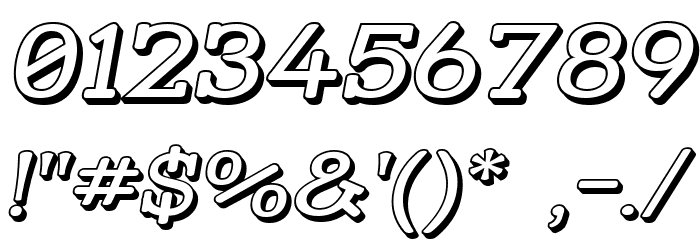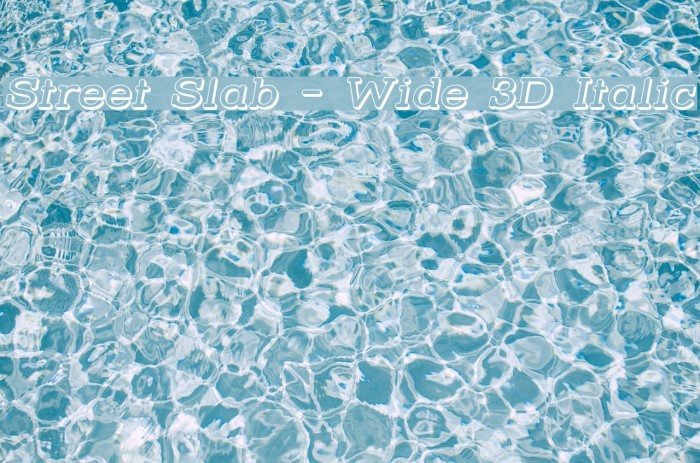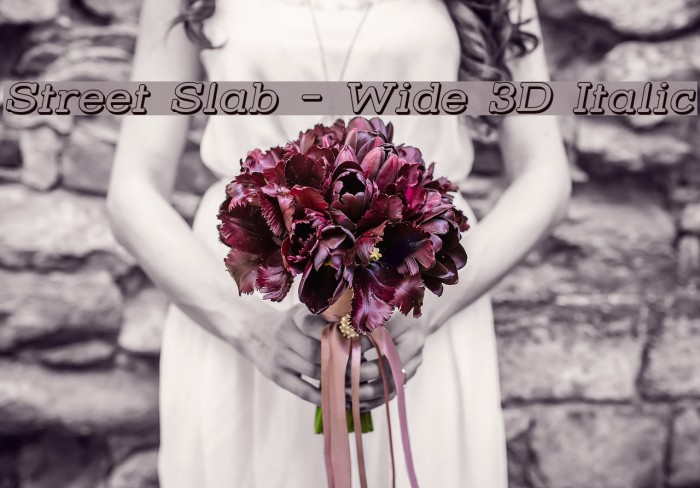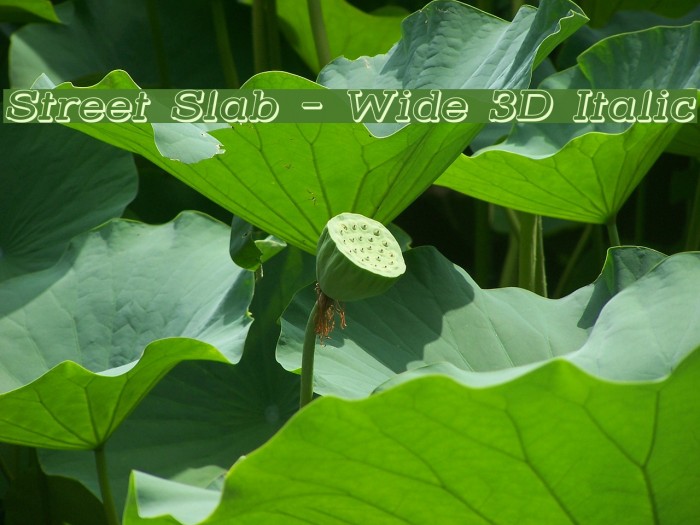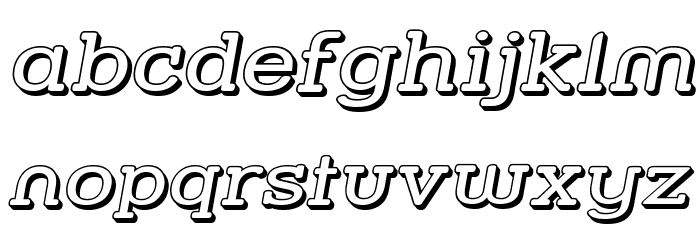
Street Slab - Wide 3D Italic Font
Street Slab - Wide 3D Italic Description
This font features a bold, slab serif style with a distinct 3D effect, giving it a striking and dynamic appearance. The italicized letters add a sense of movement and modernity, while the wide character width enhances its readability. The font's design includes a consistent stroke thickness, contributing to a medium contrast that balances visual interest with clarity. The uppercase and lowercase letters, along with numerals and special characters, are well-defined and maintain a cohesive look throughout. This font is ideal for projects that require a bold statement and a contemporary edge.
A bold, 3D slab serif font with italicized, wide characters and medium contrast from Uncategorized fonts.
- Proposed Projects: Ideal for headlines, posters, branding, and any design that needs a bold, modern touch.